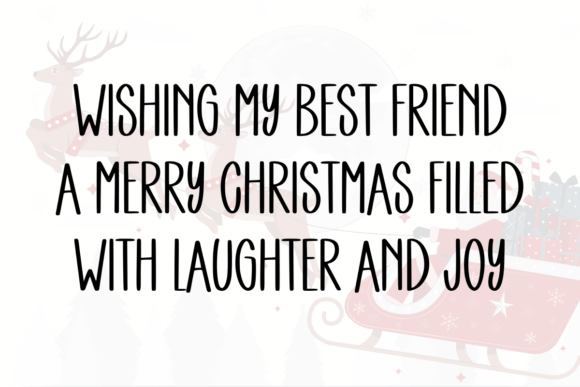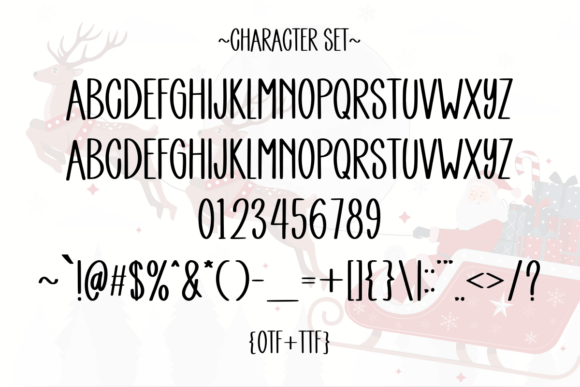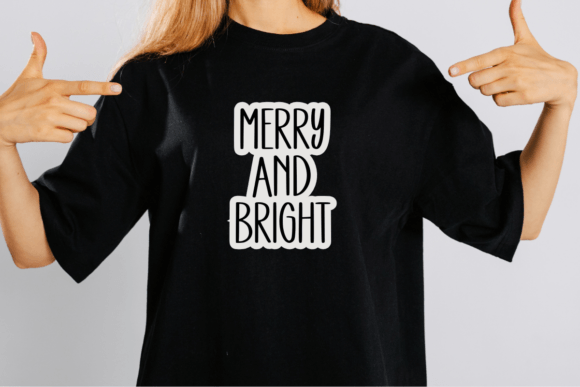
Introduction to Holyday Season Font
As designers, we’ve all been there – staring at a blank canvas, trying to conjure up the perfect font to match our creative vision. It’s that moment when the right typography can make or break a design. For me, it was a Saturday morning, surrounded by colorful stationery and a steaming cup of coffee, when I stumbled upon the Holyday Season Font. Its fun and bold sans serif style immediately caught my eye, and I knew I had to learn more.
With its retro, fun, cute, and bubbly vibe, the Holyday Season Font is the perfect design resource for any creative project that needs a touch of whimsy. Whether you’re working on a graphic design project, a social media campaign, or even a children’s book, this high-quality font is sure to bring a smile to your audience’s faces.
Key Features of Holyday Season Font
- High-quality design resource ideal for creative projects, including holiday-themed designs, greeting cards, and gift tags.
- Unique and festive design with a transparent background, allowing for easy layering and customization in design projects.
- Designed to evoke a sense of joy and celebration, making it an ideal choice for holiday-themed designs and creative projects.
Honest Review: Holyday Season Font
I recently stumbled upon the Holyday Season Font while searching for a design resource to elevate my creative project. This high-quality font caught my attention, and I was excited to dive in and see what it had to offer.
What works well: ✨ The Holyday Season Font is incredibly versatile and can be used for a variety of projects, from festive holiday designs to everyday branding. The font’s elegant and modern design makes it perfect for a range of creative applications.
What doesn’t work well: ⚠️ The font’s limited character set may be a drawback for some users. Additionally, the font’s bold and italic styles could be more extensive to provide more flexibility in design applications.
Overall impression: I was pleasantly surprised by the Holyday Season Font’s high quality and versatility. While it may have some limitations, it’s an excellent design resource for those looking to add a touch of elegance to their creative project. With its free download option and transparent background support, it’s definitely worth considering for your next design project.
Experiment with different font sizes and colors to achieve the desired effect. Combine the Holyday Season Font with other design elements to create a cohesive and visually appealing design. Consider using the font for headings or titles to draw attention to important information.
The Holyday Season Font is ideal for designing holiday-themed materials, such as Christmas cards, invitations, and decorations. It’s also suitable for use in corporate branding, advertising, and other creative projects where a high-quality, elegant font is required.